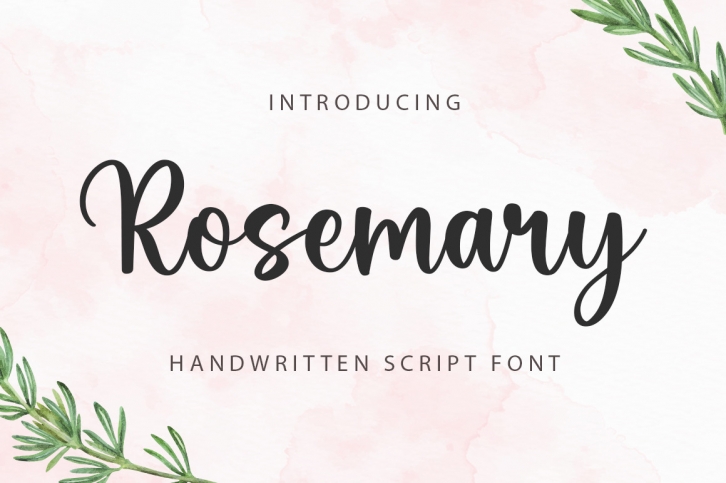
Rosemary is a delicate, elegant, and flowing handwritten font. It has beautiful and well-balanced characters, and as a result, it matches a wide pool of designs. Rosemary is PUA encoded, which means you can access all of the glyphs and swashes with ease!